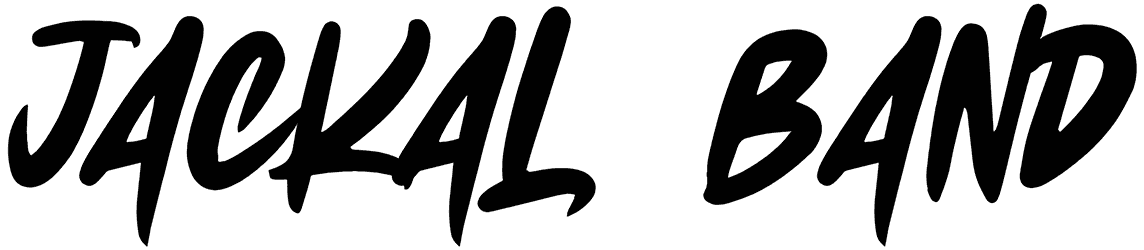
Are you working on a cool and urban design? This script font, with its soft and casual form, will be a perfect pick for your words. The characters of this 80s brush font are modern and realistic, but it doesn’t cover punctuation marks. The Jackal Band font is able to add a unique mood to your creative projects, like a music album design.